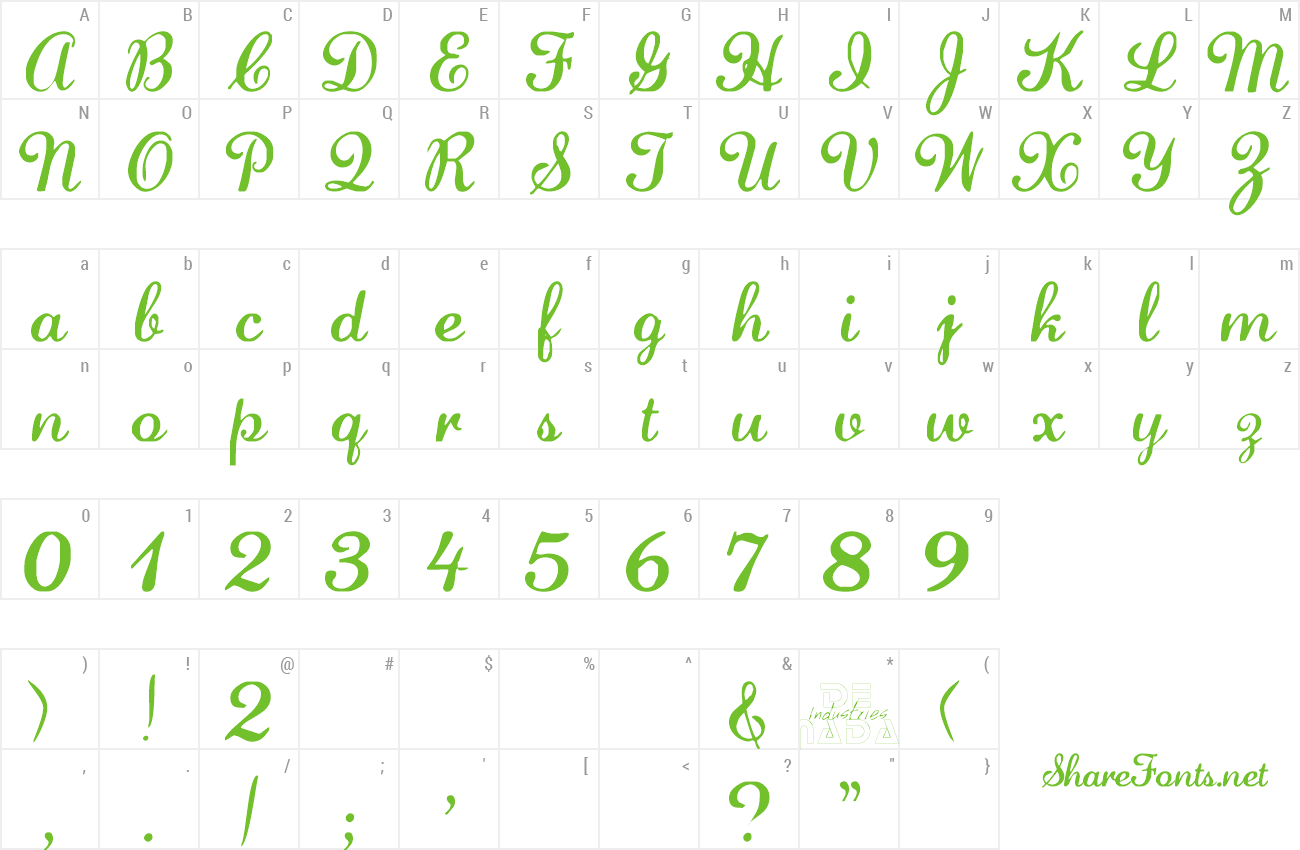
Click to find the best 243 free fonts in the bold cursive script style. Download lauren script regular font with regular style. Download the lauren script font by de nada industries. Making the web more beautiful, fast, and open through great typography Ideal for logos, handwritten quotes, product packaging, header, poster, merchandise, social media & greeting cards. You can use the lauren script to create interesting designs, covers, shop and store name. Most fonts on this site are freeware, some are shareware or linkware. Lauren script is the perfect font for all your fun designs.
The font family is lauren.
Download 186,286 free fonts at ufonts.com Lauren script , de nada industries , calligraphy , lauren_readme.txt , laurenscript.ttf , windows font characters sample Lauren script font lauren is a handmade calligraphy script font that comes with a modern design. Ideal for logos, handwritten quotes, product packaging, header, poster, merchandise, social media & greeting cards. The fonts collection section is the place where you can browse, filter, custom preview and. Download free fonts for mac, windows and linux. Monotype hide show add to favorite download. The dancing script font has been downloaded 1,004,017 times. The fonts in use section features posts about fonts used in logos, films, tv shows, video games, books and more; Download lauren script font with script style. Download the lauren script font by de nada industries. May 28, 2017 by free fonts. The font contains characters from the following unicode character ranges: